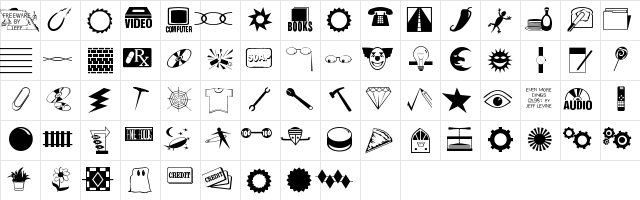
Even More Dings JL Regular
Design Context for Even More Dings JL Typeface
Even More Dings JL is a composed and adaptable typeface that performs quietly and consistently across a wide range of design contexts.
Pro Tip: Use Even More Dings JL in both headline and body roles to test its range before committing to a single application.